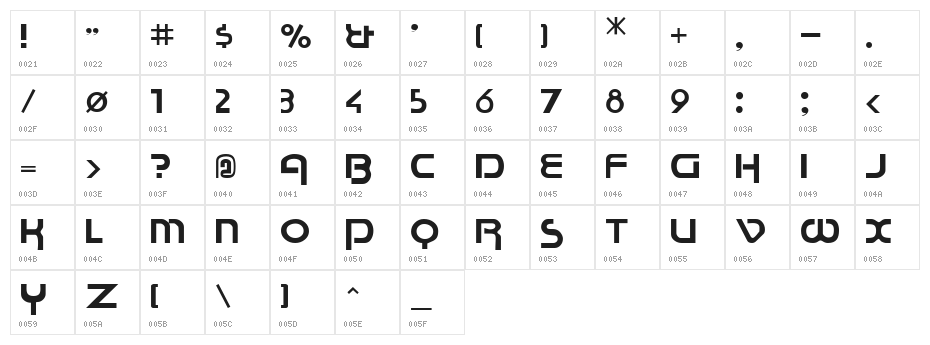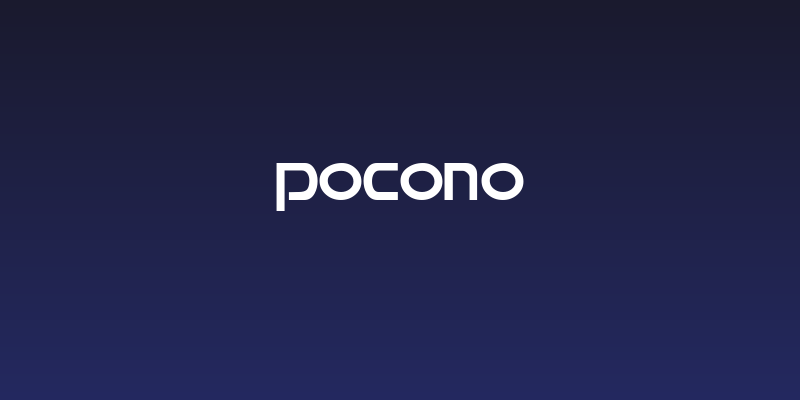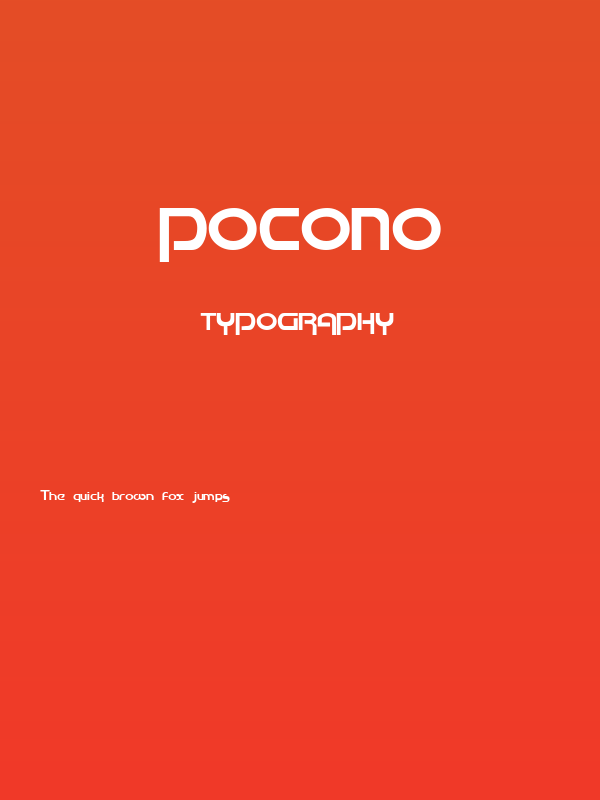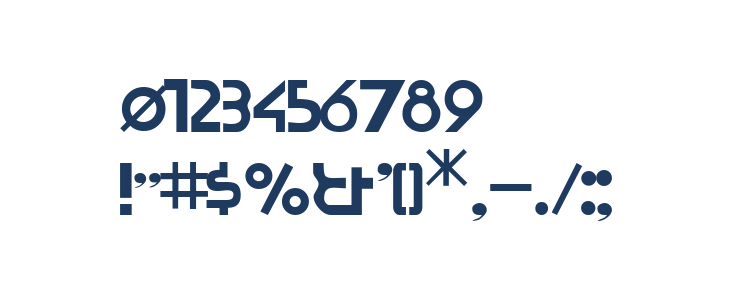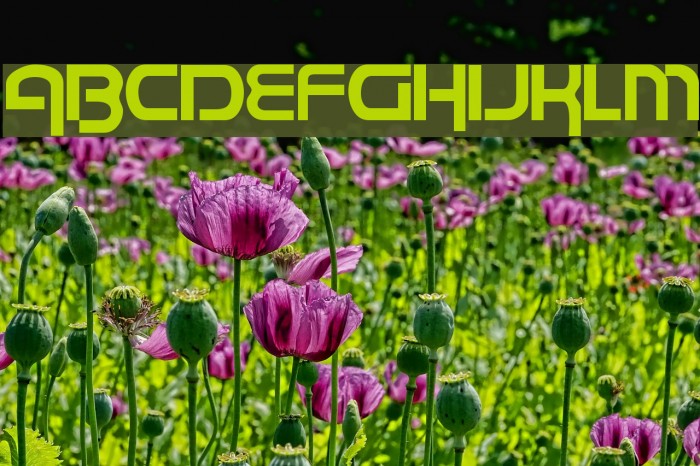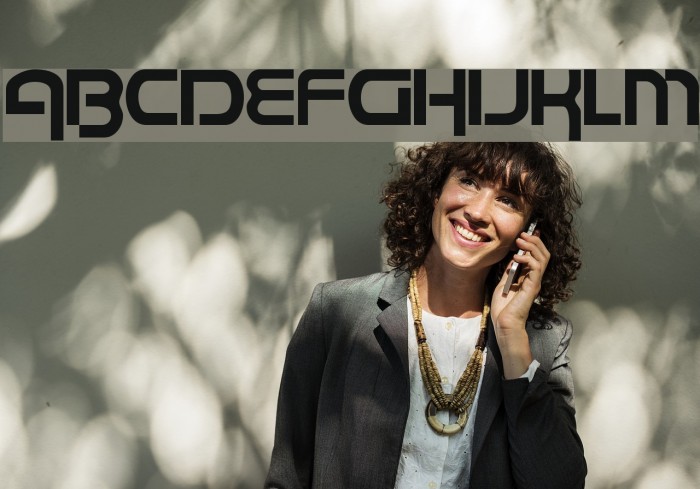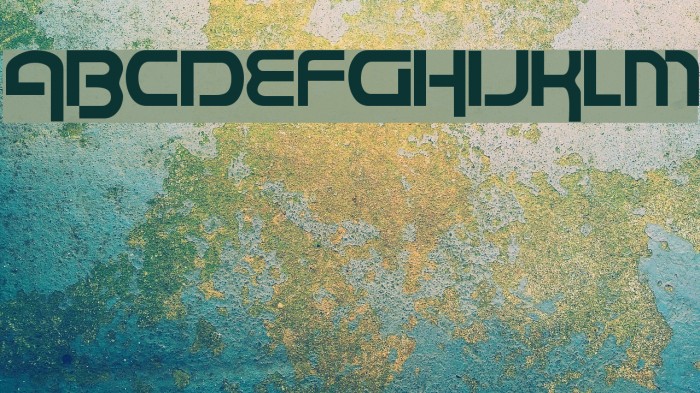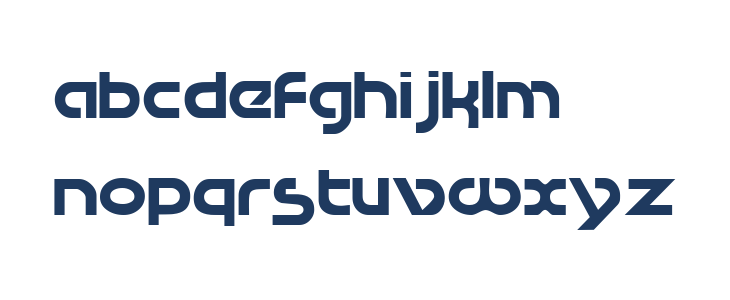
Pocono Font
Pocono Description
This font features a bold, geometric design with a futuristic and modern aesthetic. The characters are constructed with clean lines and sharp angles, giving it a distinctive and edgy appearance. The uppercase letters have a uniform height, while the lowercase letters maintain a consistent baseline, contributing to a cohesive look. The numerals and special characters are designed to match the overall style, with a focus on symmetry and balance. This font is ideal for projects that require a strong visual impact and a contemporary feel.
| Proposed Projects | Ideal for branding, posters, digital media, and any project needing a modern, impactful look. |